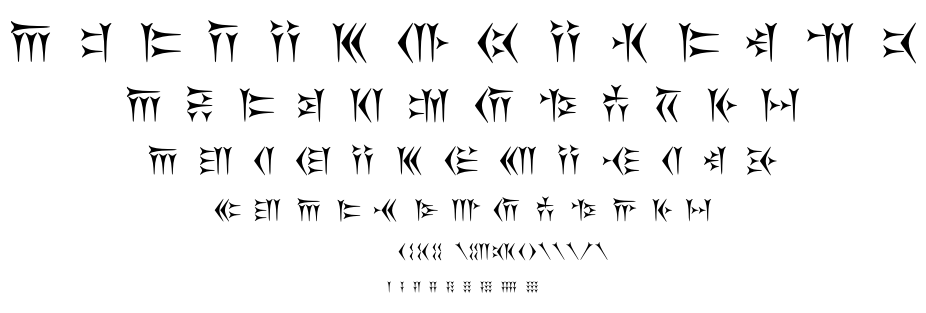
Made for researchers of Old Persian cuneiform script, Kakoulookiam is a font whose all the glyphs’ shapes are rigorously moulded to be the most acuratelly similar to Old Persian texts found on metal carving scriptures from the times of emperor Darius, the Great. For more information on the font and how to use it, contact me: fereydoun23@gmail.com